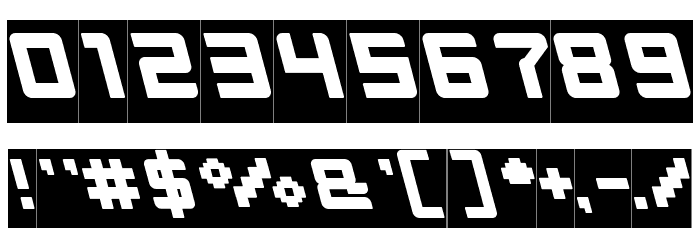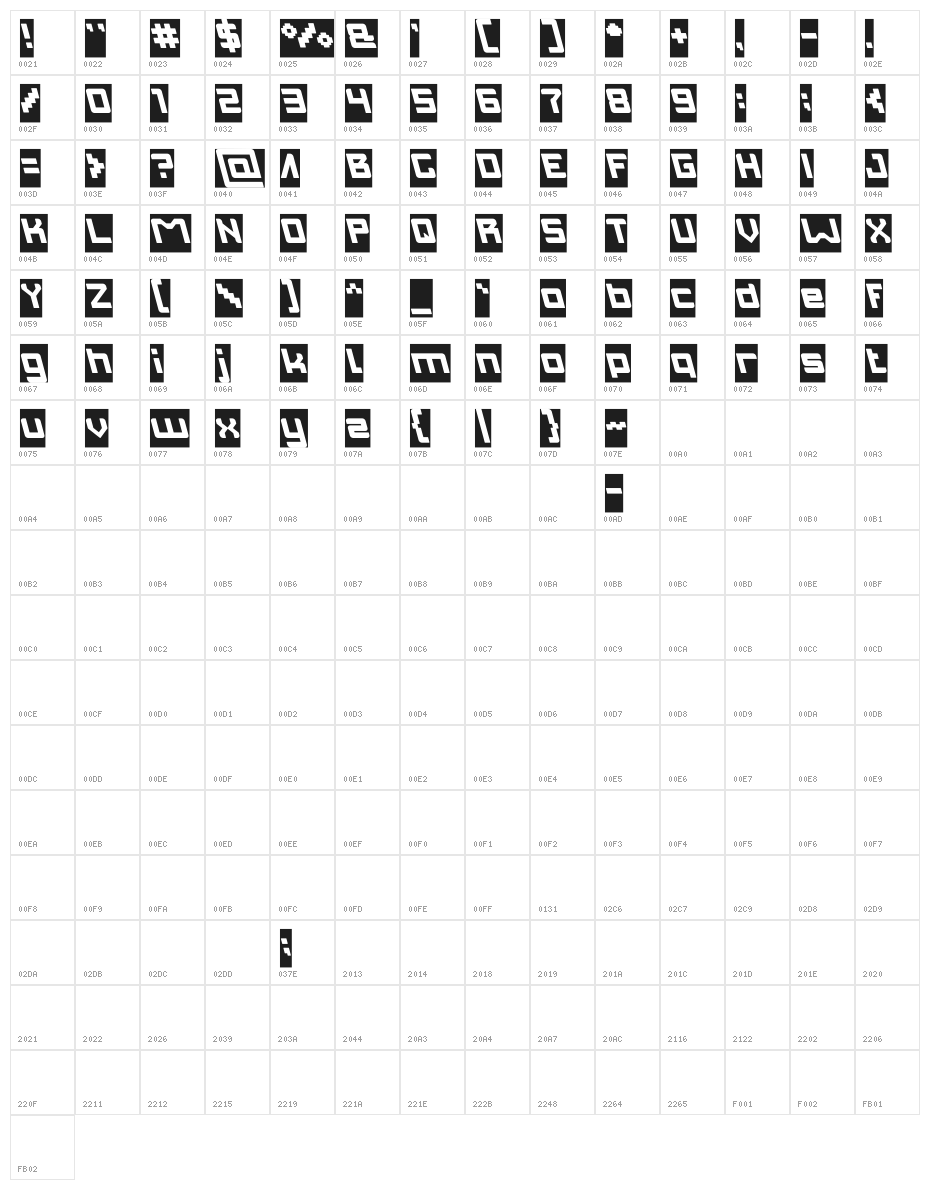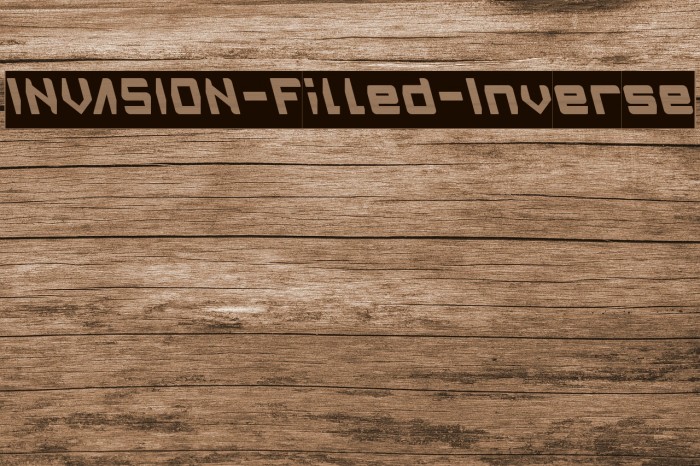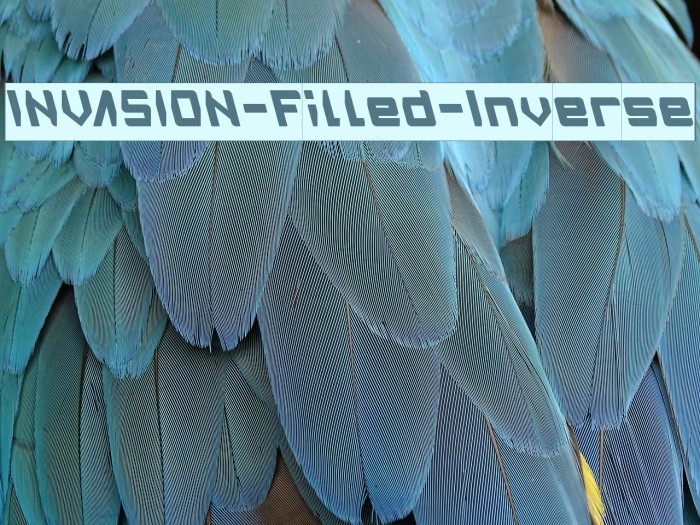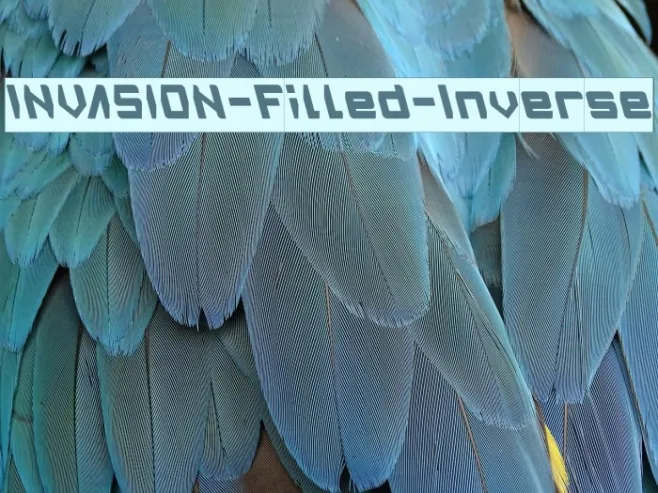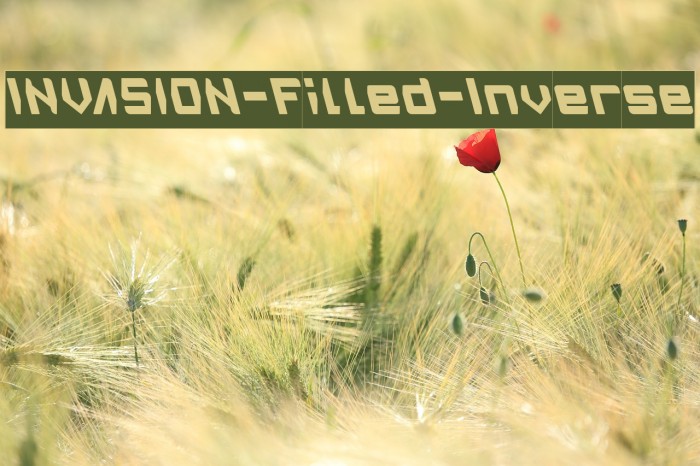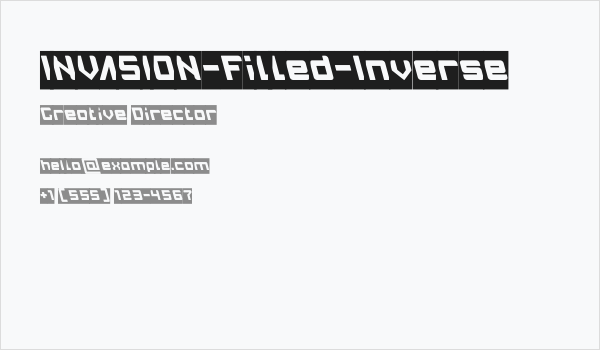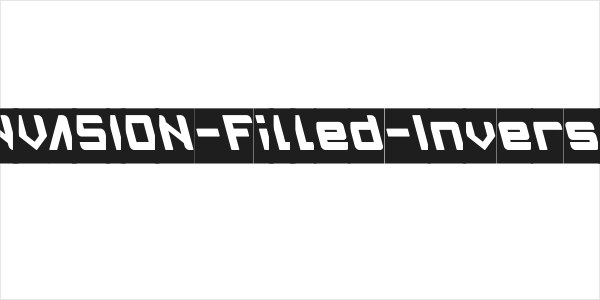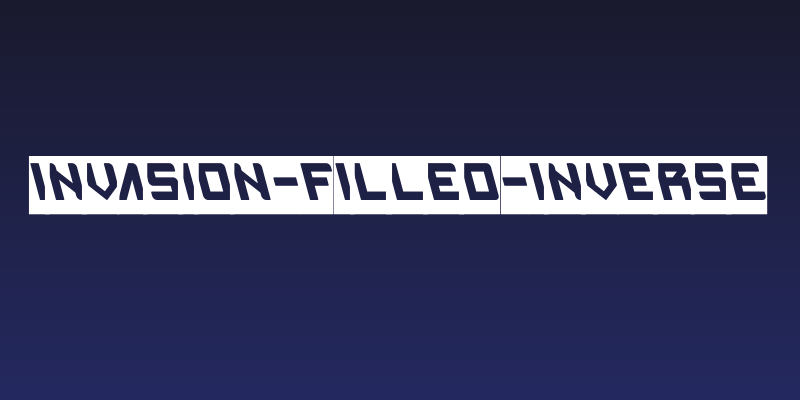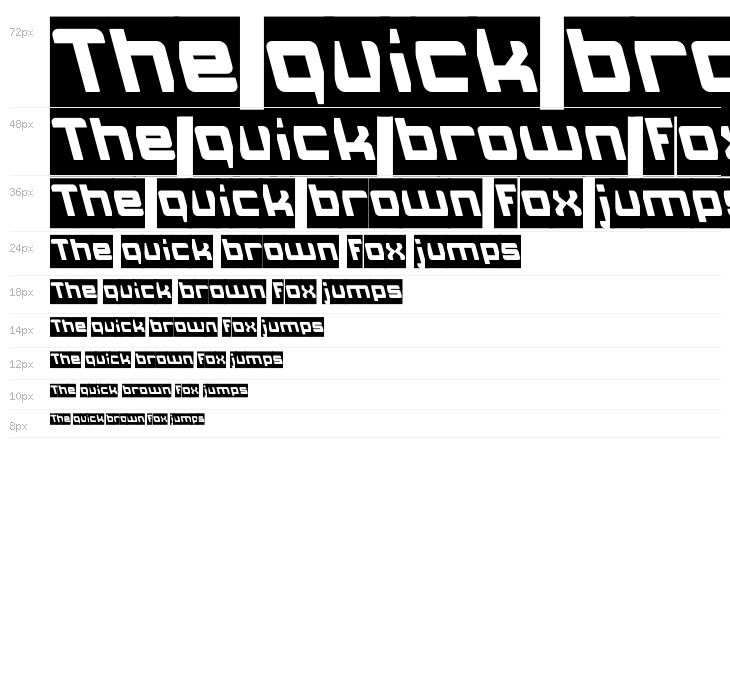
INVASION-Filled-Inverse Font
INVASION-Filled-Inverse Description
This font features a bold, futuristic design with sharp, angular edges and a geometric structure. The characters are filled and inverse, creating a striking contrast against the background. The uppercase and lowercase letters maintain a consistent style, with unique cuts and angles that give the font a dynamic and aggressive appearance. The numbers and special characters follow the same design principles, ensuring uniformity across all elements. This font is highly stylized, making it ideal for projects that require a modern and edgy look.
| Proposed Projects | Ideal for sci-fi themed designs, video game titles, tech branding, and modern posters. |